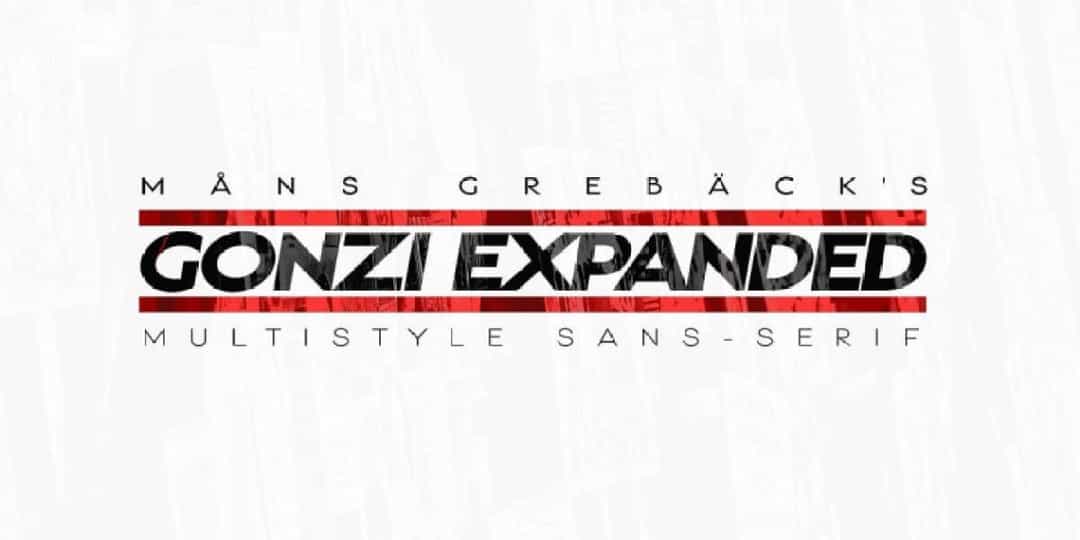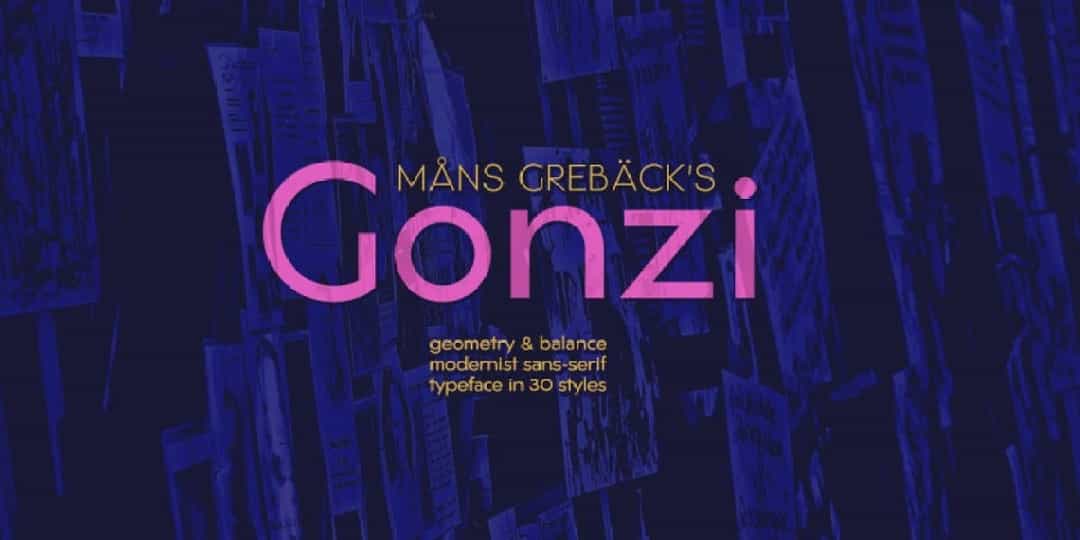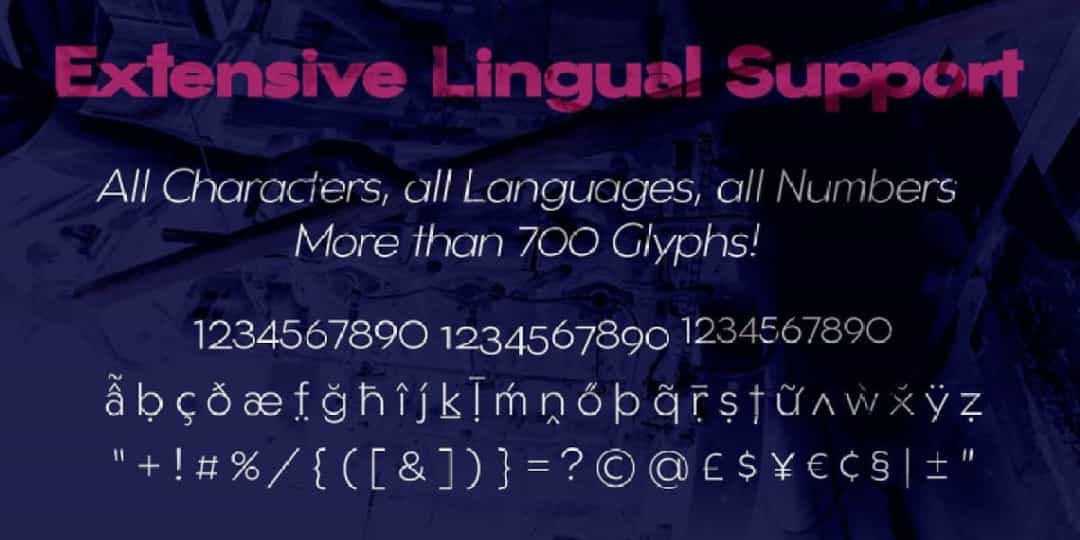
Gonzi Expanded font is an arbitrary sans serif typeface with 30 styles. Featuring rounded lowercase letters with bold, expressive capitals to form a contemporary simple typesetting; while still remaining accessible and clear. Gonzi comes in five weights that cover narrow, medium, and broad thinn. Thin Regular Bold Black Condensed Medium Extended one of which comes available also as Italic to make up its total of 30 styles that offer high-quality font styles.